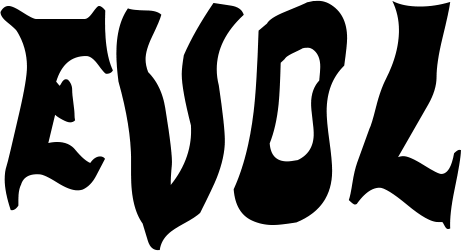
Evol Font
This Evol font will give you the chance to assemble the mysterious typography you have been visualizing. This distorted font possesses bold, out-of-shape, crippled characters that convey a retro feel with the creepy characters that are sharp, distressed, and unbalanced.
Only 2 sets of capitalized alphabets are available for Evol and it doesn’t contain any small case letters, numbers, or even punctuation. Places you might give a try while manipulating this font are clothing, stickers, Halloween designs, and movie titles.